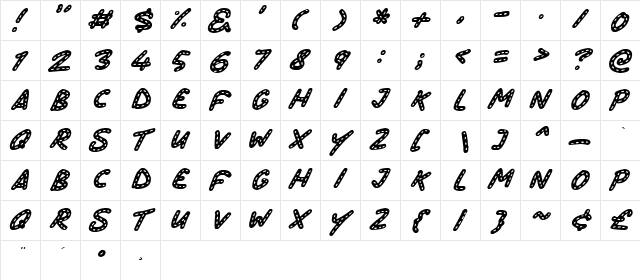
Stitchy Missy Italic
Design Context for Stitchy Missy Typeface
Stitchy Missy is a composed and adaptable typeface that performs quietly and consistently across a wide range of design contexts. The dynamic lean of this cut emphasises speed and emphasis in any layout.
Pro Tip: Try Stitchy Missy for annotation and caption copy alongside an upright companion — the contrast in angle creates a dynamic but ordered typographic system.